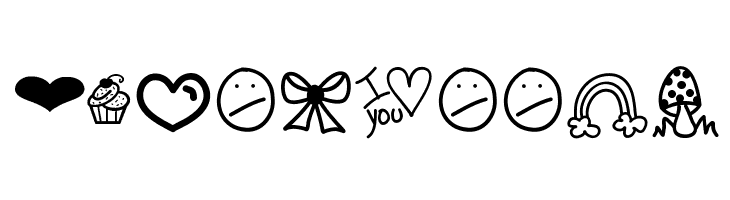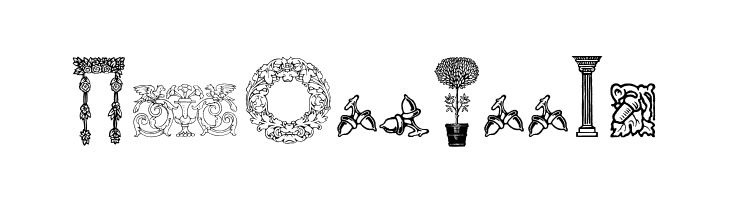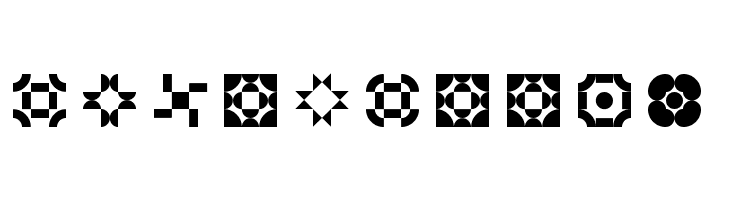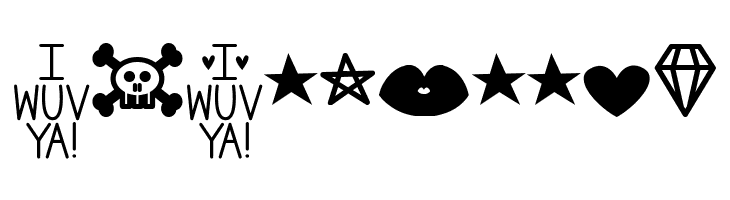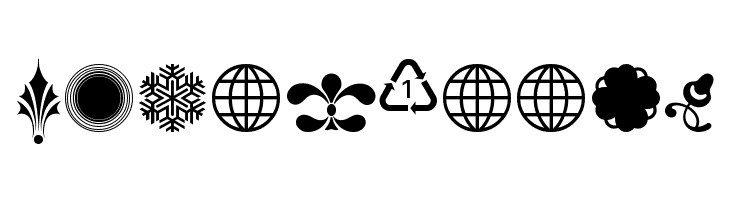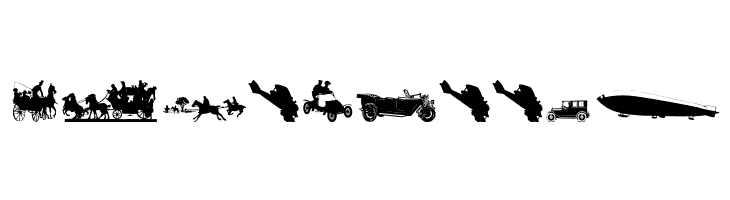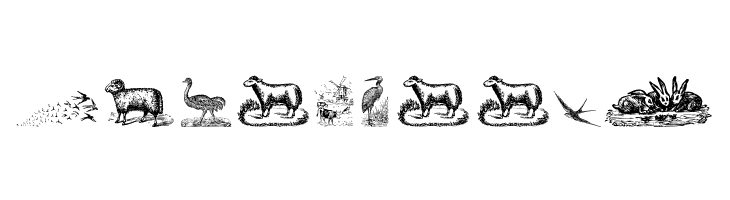
A playful and whimsical collection of hand-drawn dingbats featuring various symbols.
Ornamental vector dingbats with floral and classical motifs.
A diverse collection of ornamental and decorative dingbats.
Bold geometric dingbat symbols with high contrast and decorative patterns.
A diverse set of ornamental and decorative dingbats.
Ornate, vintage animal and nature illustration dingbats.